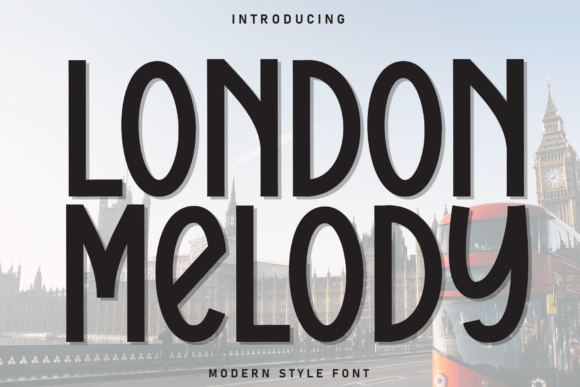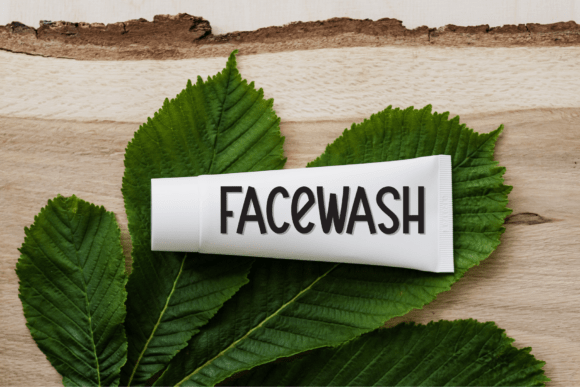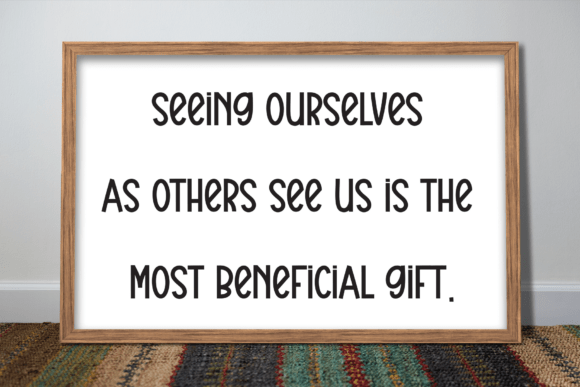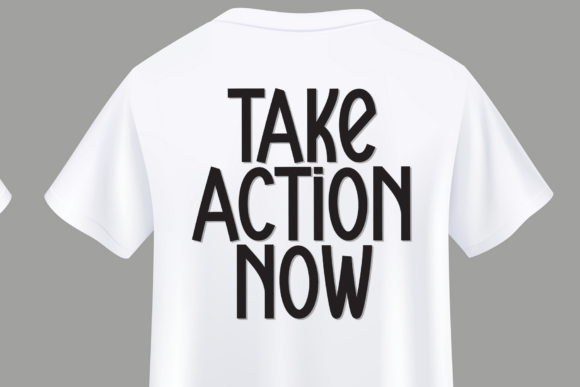
London Melody Font
About the London Melody Font
Make a bold statement with London Melody Font, a powerful and memorable font. London Melody strikes a balance between sleek modernism and urban edge. Its tall, condensed letters and subtle curves create a bold yet refined look, making it ideal for magazine headlines, posters, branding, and travel-themed designs that need a cosmopolitan flair.
This font’s strong verticality and condensed forms make it unsuitable for body text or lengthy paragraphs; readability suffers at smaller sizes. It excels in applications requiring impact and a sense of sophisticated dynamism, such as logotypes, short headlines, posters, and packaging for high-end products. Avoid using it in user interfaces where legibility is paramount.
London Melody’s core personality is bold and modern, yet refined. It suits brands projecting confidence, innovation, and a touch of cosmopolitan flair – think fashion, technology, or premium travel.
London Melody Font Usage Examples
London Melody Font Example